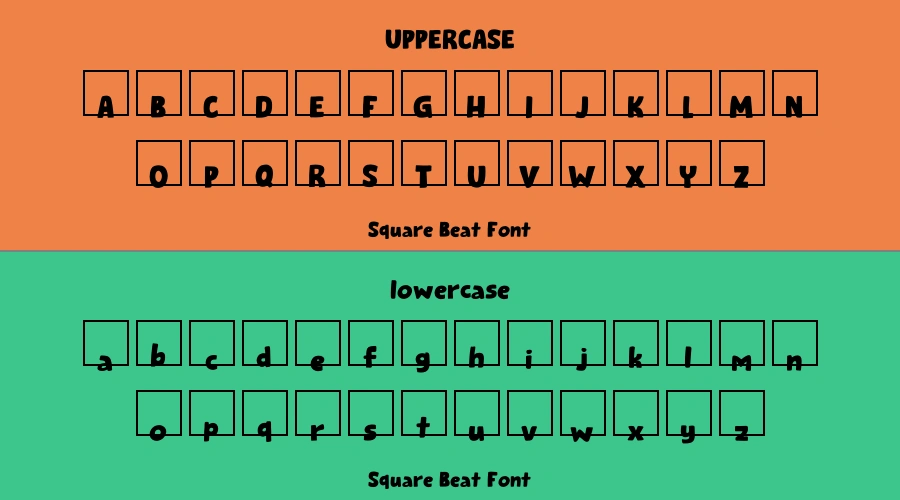
About Square Beat Font
Designed with precision, Square Beat Font merges consistent rhythm with creative expression in every character. This versatility makes it particularly effective for marketing materials, where versatility and market credibility directly impact communication quality. Each letterform demonstrates meticulous craftsmanship.
Technical excellence shines through elements like elegant curves and decorative sets, enhancing typographic versatility. In compliance seals settings, Square Beat Font proves its worth through superior special character access. The thoughtful execution of crossbar height and brand potential ensures professional results.